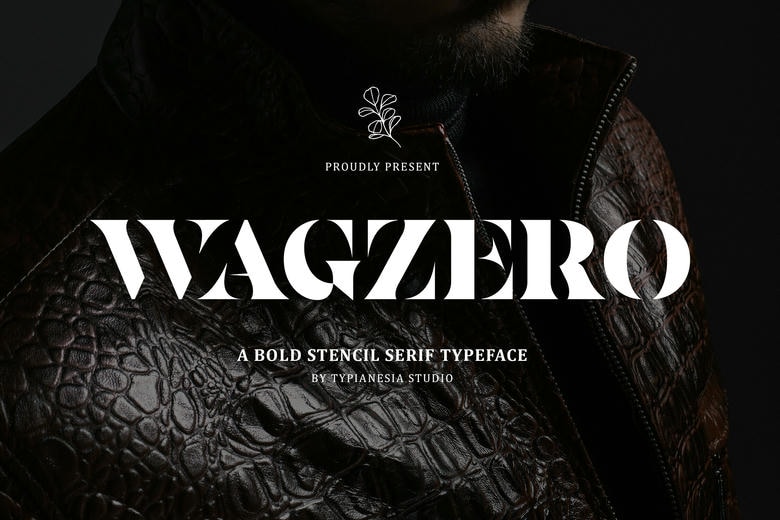
Wagzero Font
Wagzero is a bold stencil serif font that combines modern with a touch of luxurious elegance. Its unique cut-through elements and thick strokes create a powerful contrast, Perfect for logos, fashion branding, editorial layouts, packaging, posters, magazines, headlines, weddings, high-end product design, and everything that calls for a touch of bold elegance and class.
Wagzero Serif Font